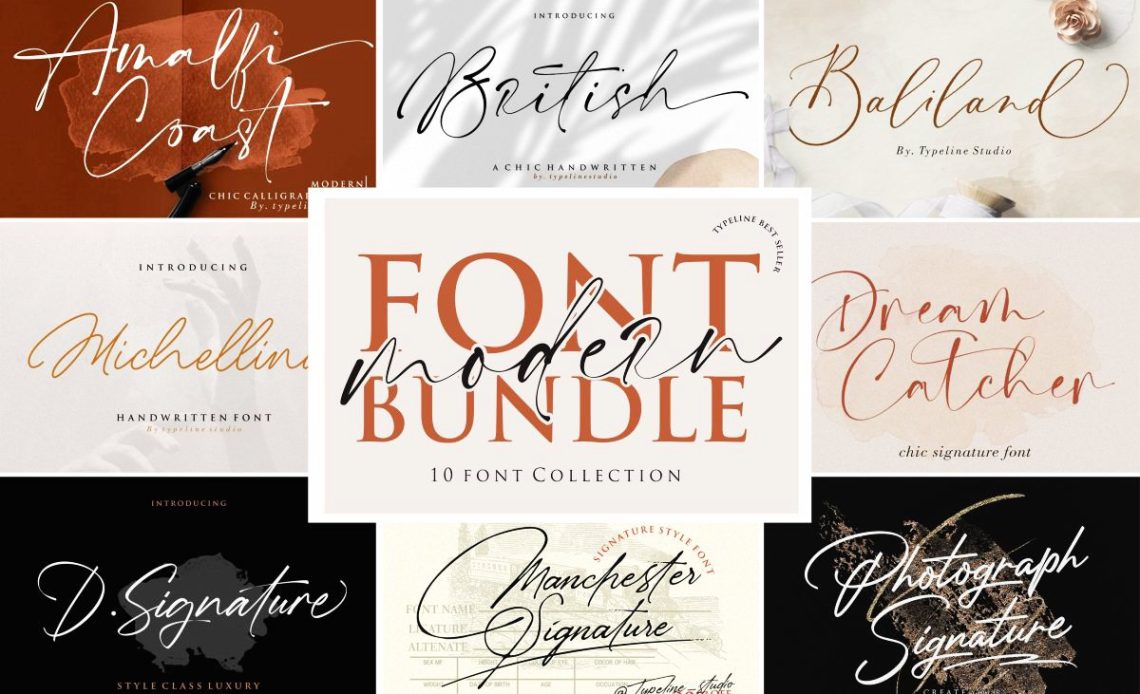
Looking for the best font for your elegant logo? Look no further than The Modern Handwritten Font Bundle! This collection of 10 handwritten fonts and 2 modern serif fonts, created by Yadi Setiawan, is the perfect addition to your font library.
With fonts like the Amalfi Coast, British Handwritten, Michellina Handwritten, and D.Signature, you can create stunning designs for product brands, wedding invitations, social media content, and more. And with a total of 12 bonus image items included, all for the unbeatable price of $29, you won't find a better deal anywhere else.
But it's not just the price that makes this bundle stand out. Each font has its own unique style, from the modern minimalist elegance of Boowie, to the vintage letterpress of Fashion Modish. And with the beautiful swashes included, you can add that extra touch of flair to your designs.